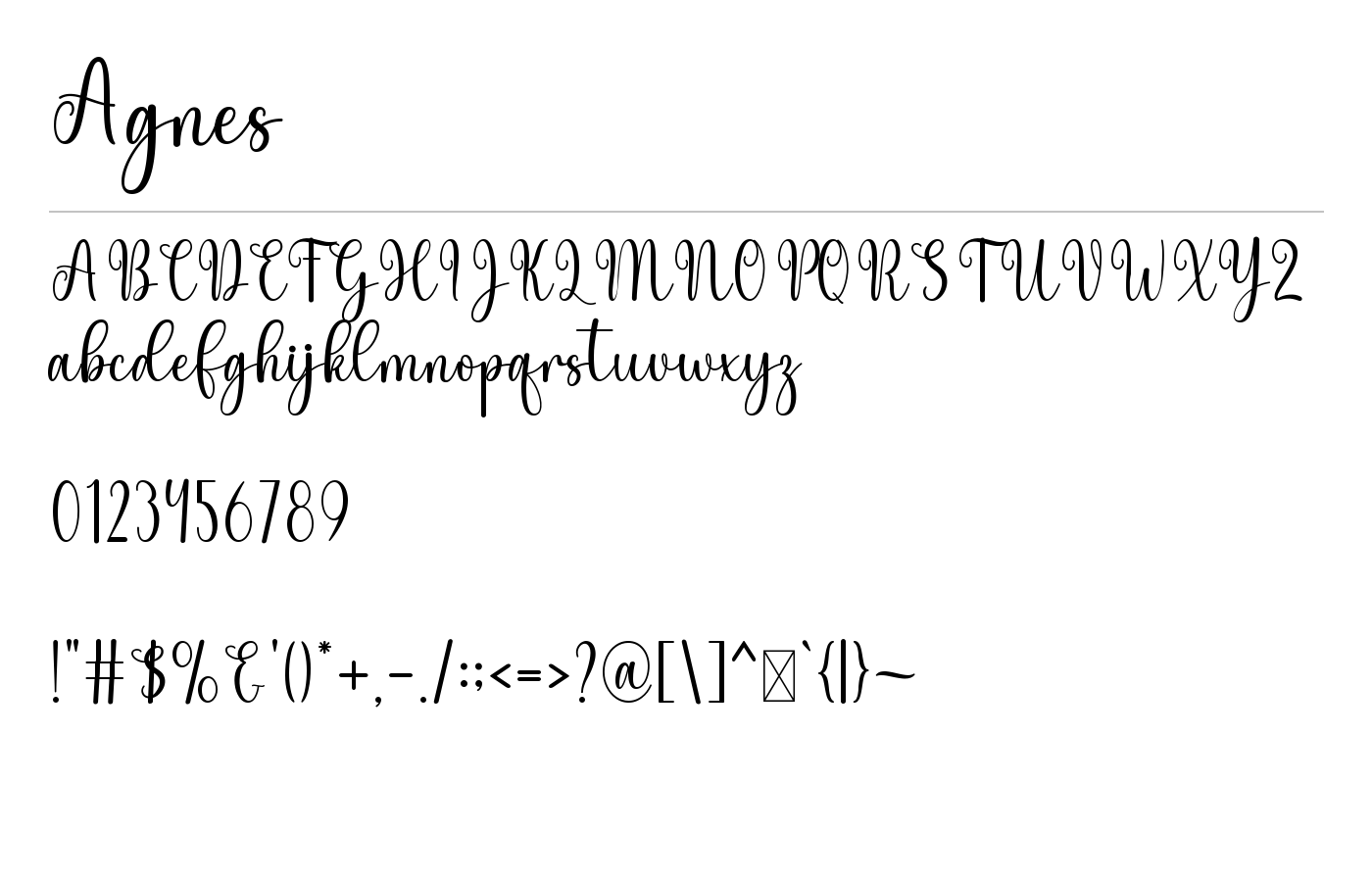
Agnes is an elegant script font with a delicate and flowing style that combines thin, graceful strokes and playful curls. Its tall, narrow letterforms and slightly whimsical details give it a charming, handwritten feel, making it ideal for inviting and feminine designs. This font works beautifully in invitations, branding, and decorative headlines where a touch of sophistication and personality is desired.
Agnes Font
About Agnes Font